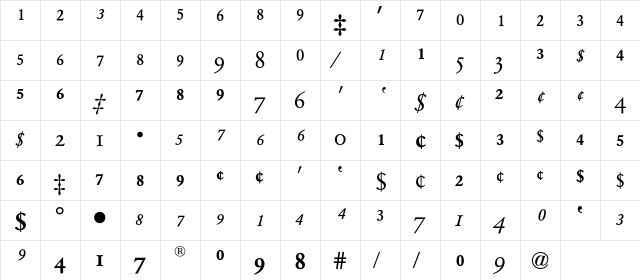
Garamond Fractions BQ Regular
Design Context for Garamond Fractions BQ Typeface
Garamond Fractions BQ is a composed and adaptable typeface that performs quietly and consistently across a wide range of design contexts.